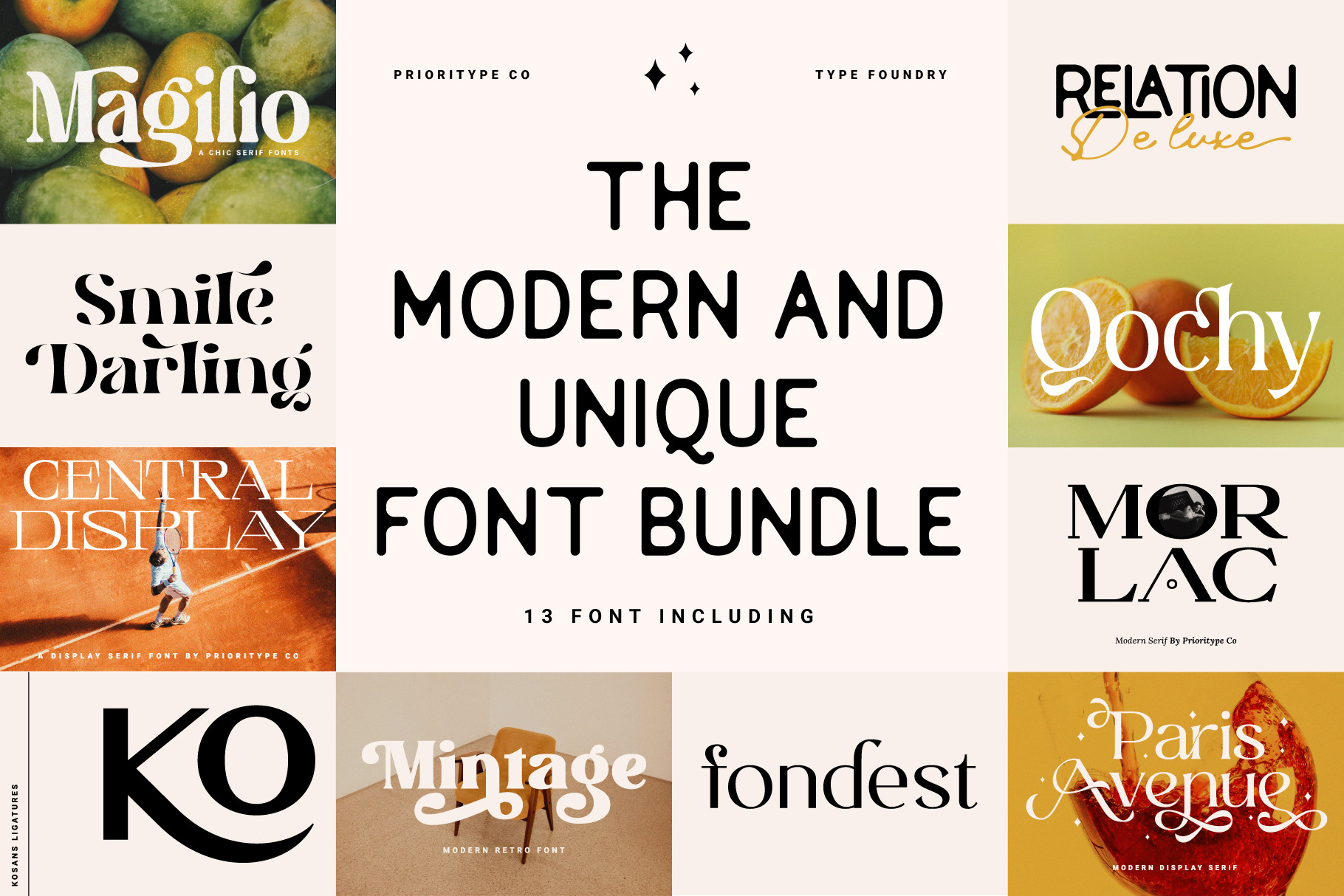
The Modern & Unique Font Bundle
Contains 10 fonts that you are ready to use for your design projects such as branding, creative posts, logos, covers and so on.
Font Including: